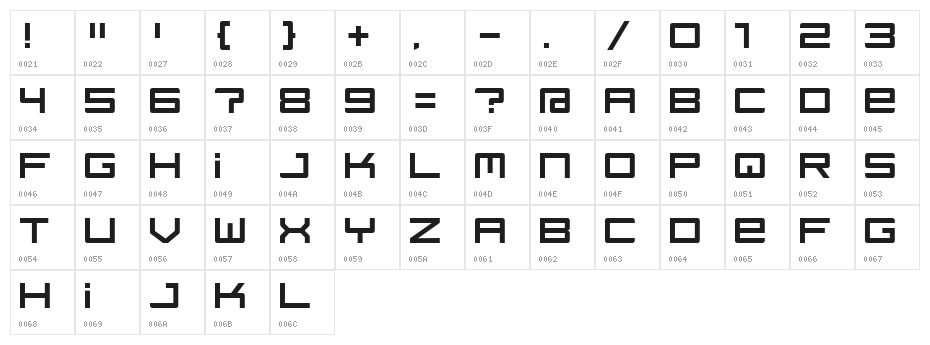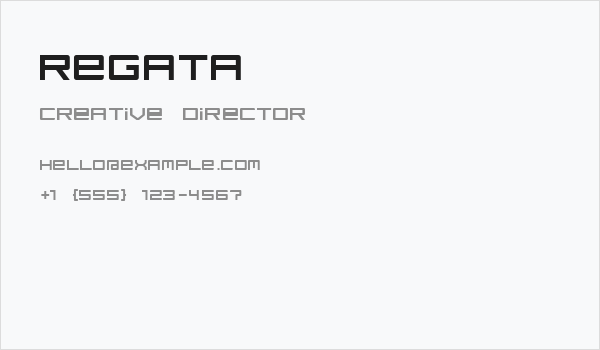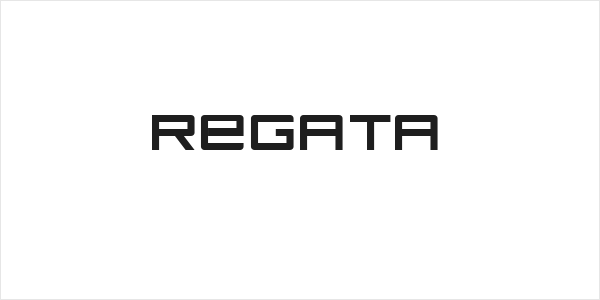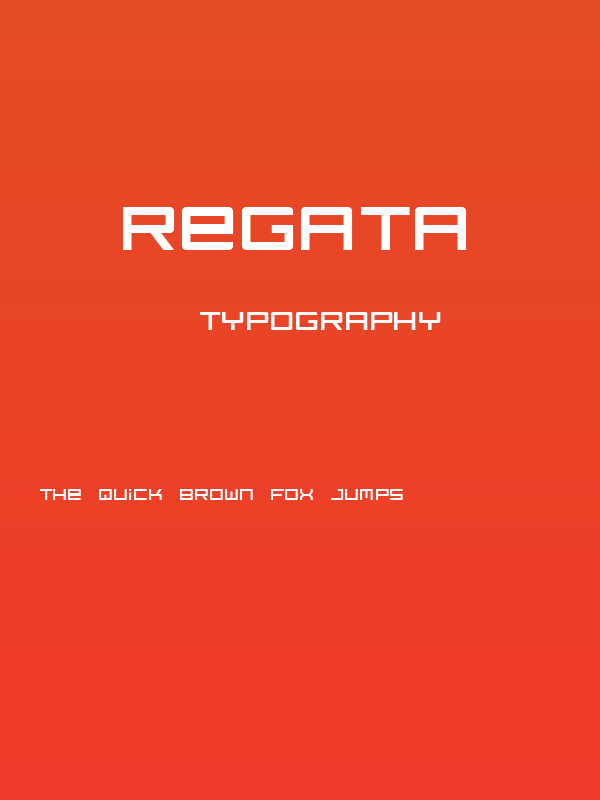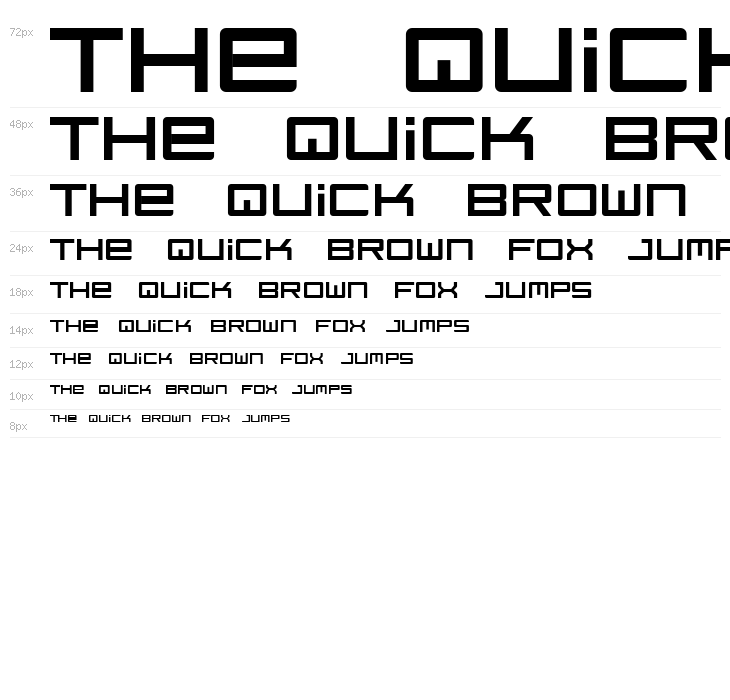
regata Font
regata Description
This font features a modern, geometric design with a strong emphasis on straight lines and right angles. The characters are constructed with a consistent stroke width, giving it a uniform appearance. The uppercase letters are bold and commanding, while the lowercase letters maintain the same geometric style with a slightly more compact form. The numerals are distinct and easily readable, following the same design principles as the letters. Special characters are included, maintaining the overall aesthetic. This font is ideal for projects that require a futuristic or tech-oriented look.
| Use Case | Logos, Headlines, Digital Interfaces |
| Proposed Projects | Ideal for technology branding, digital interfaces, video game design, and modern advertising. |